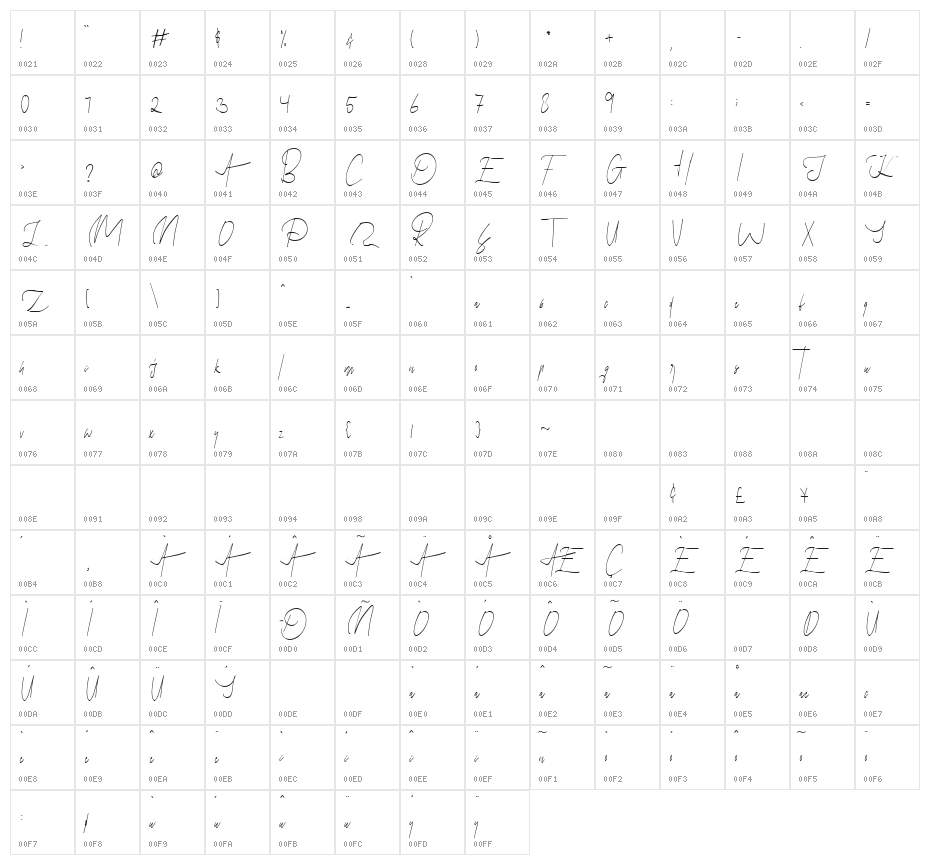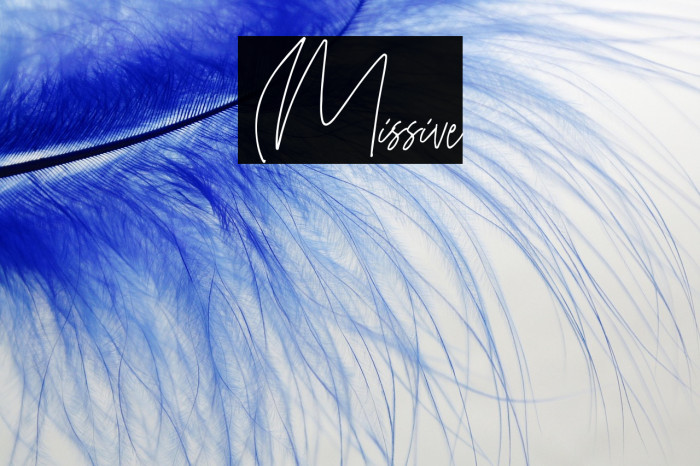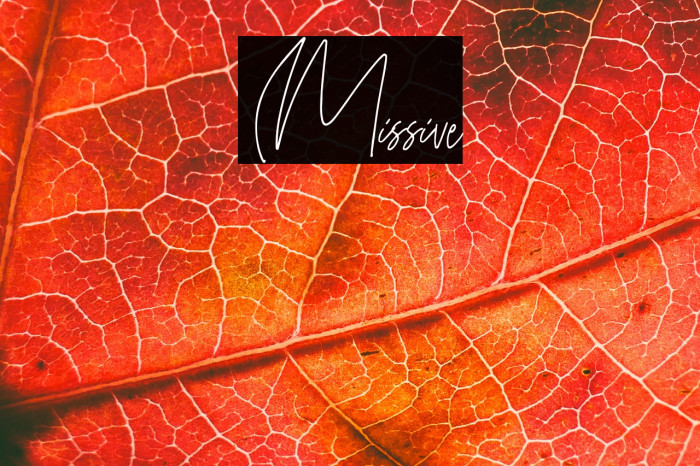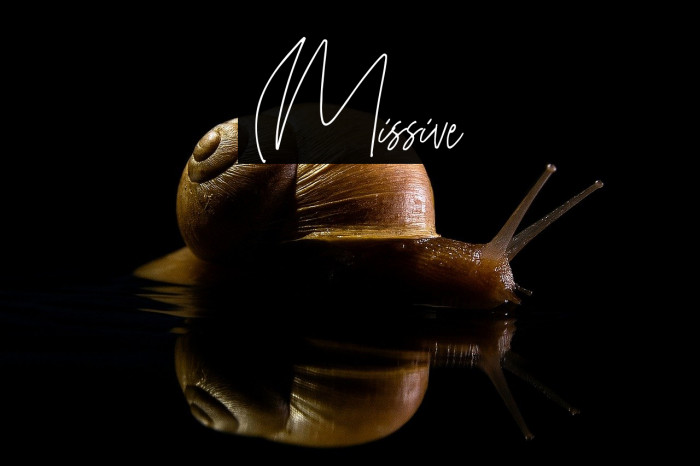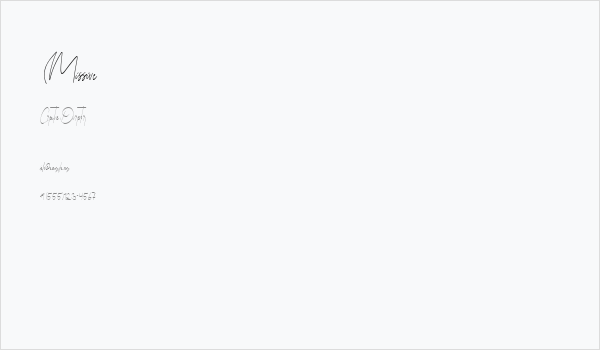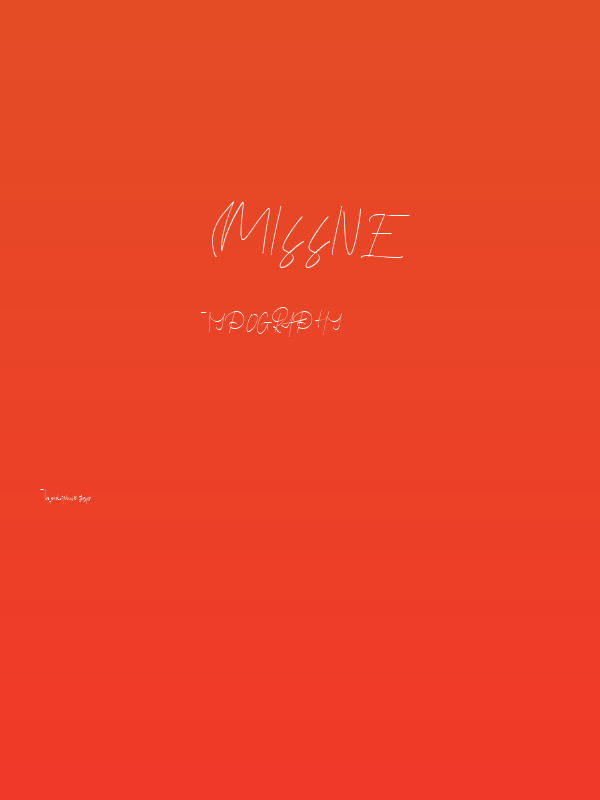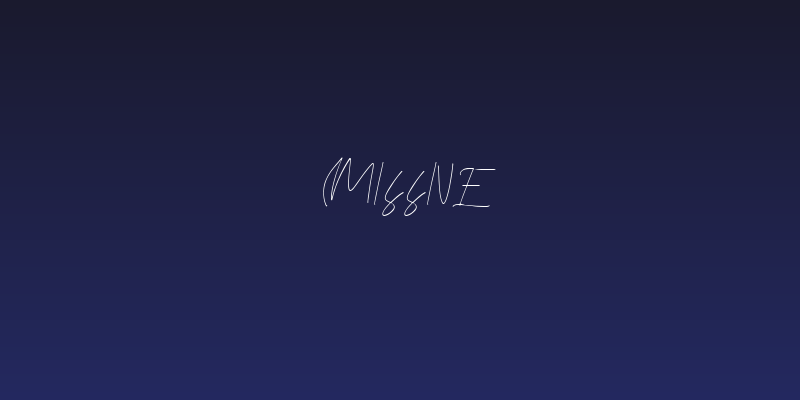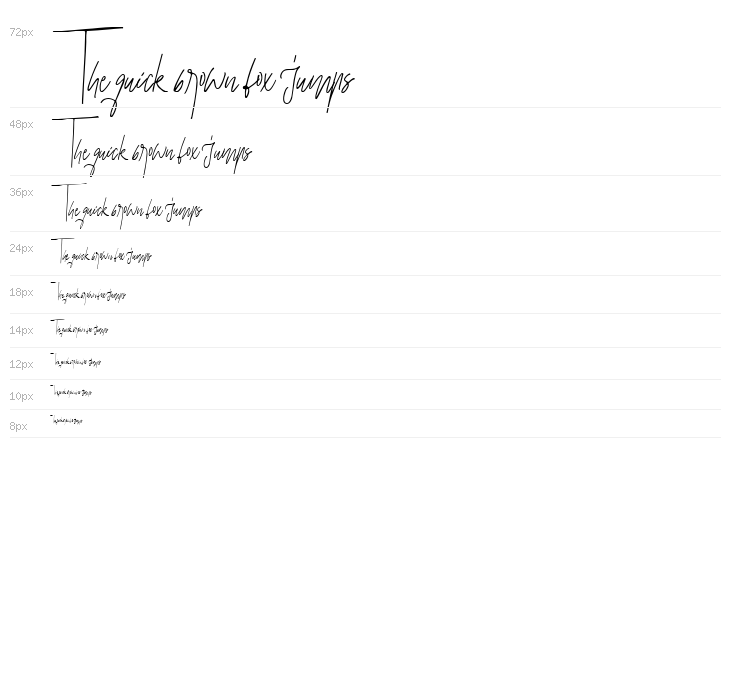
Missive Font
Missive Description
This font features a handwritten style with a casual and flowing appearance. The letters are thin and elongated, giving it an elegant and sophisticated look. The uppercase letters are distinct with a slight slant, while the lowercase letters maintain a consistent flow, enhancing the script-like quality. The numbers are clear and maintain the same thin, elongated style as the letters. Special characters are included, matching the overall aesthetic with a playful yet refined touch. This font is ideal for projects that require a personal, human touch, such as invitations, greeting cards, or personal branding.
| Overall Style | Casual, Elegant |
| Use Case | Invitations, Greeting cards, Personal branding |
| Proposed Projects | Ideal for invitations, greeting cards, personal branding, and creative projects requiring a personal touch. |